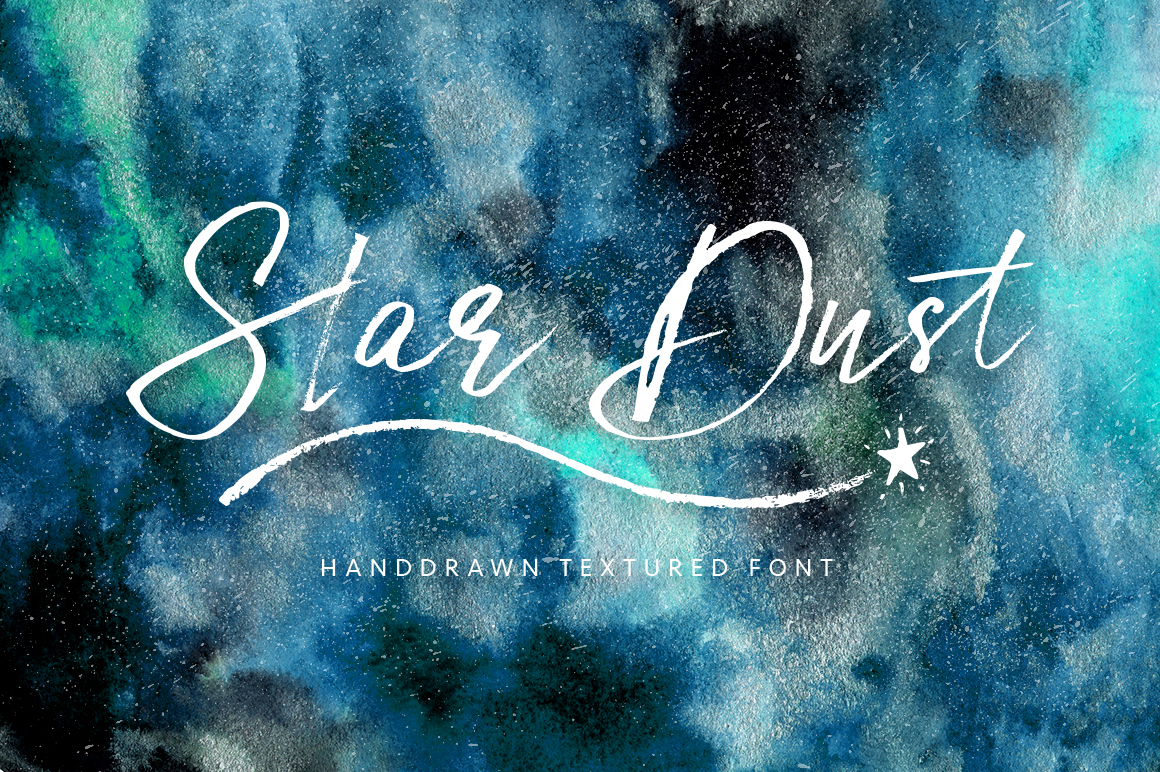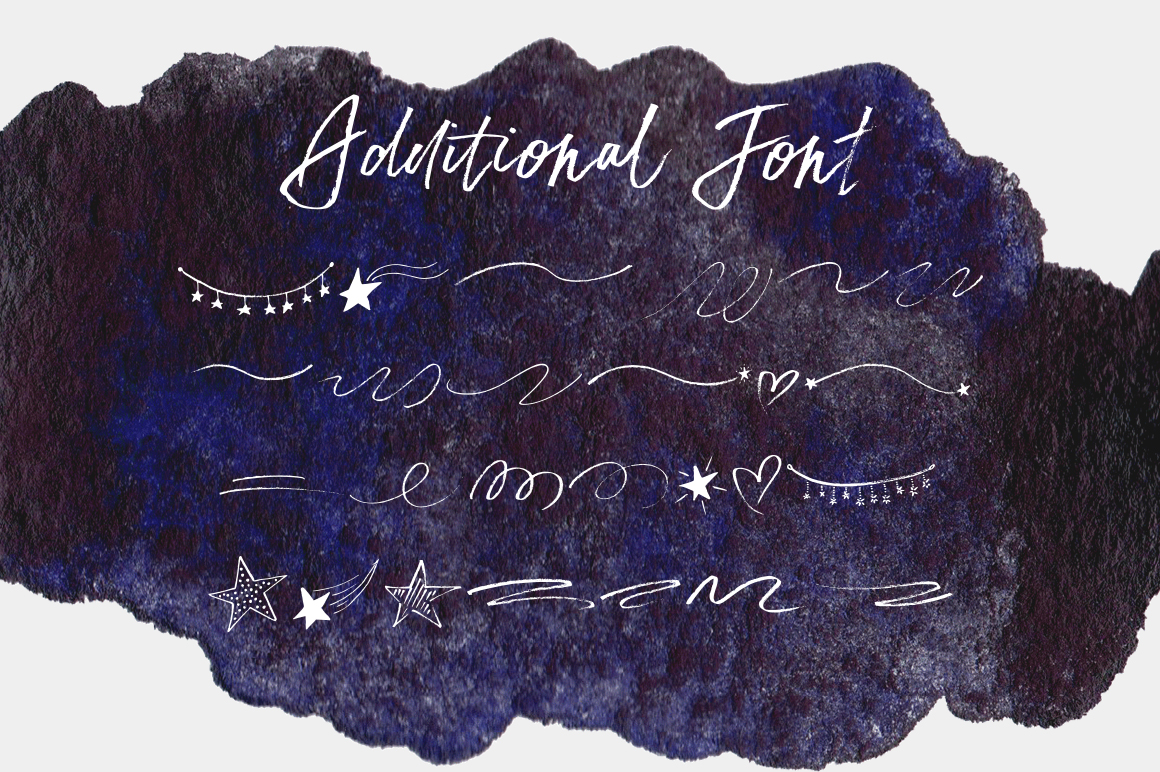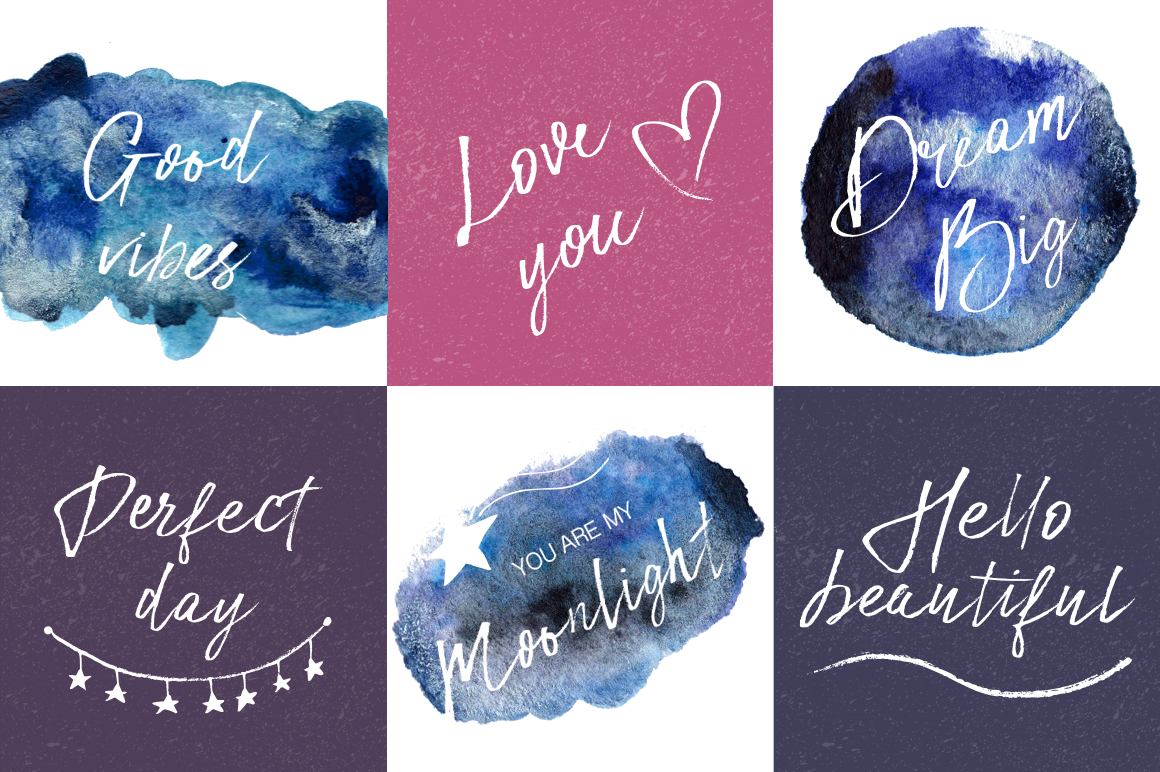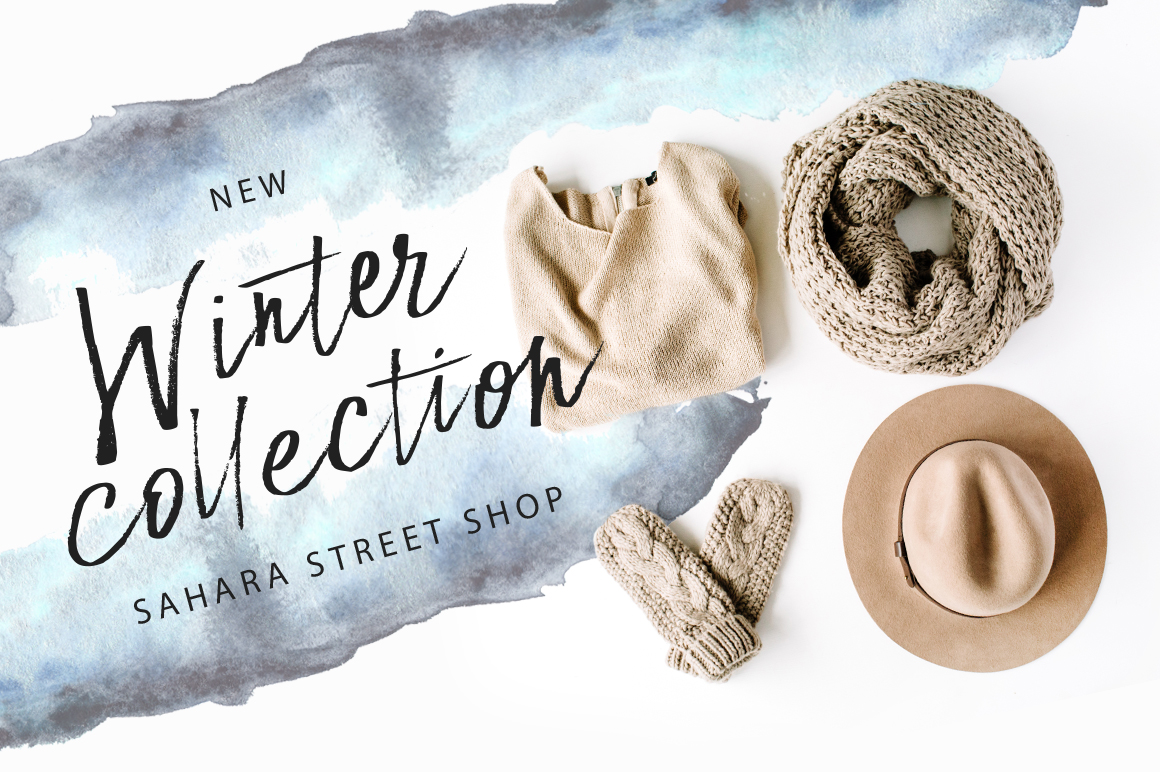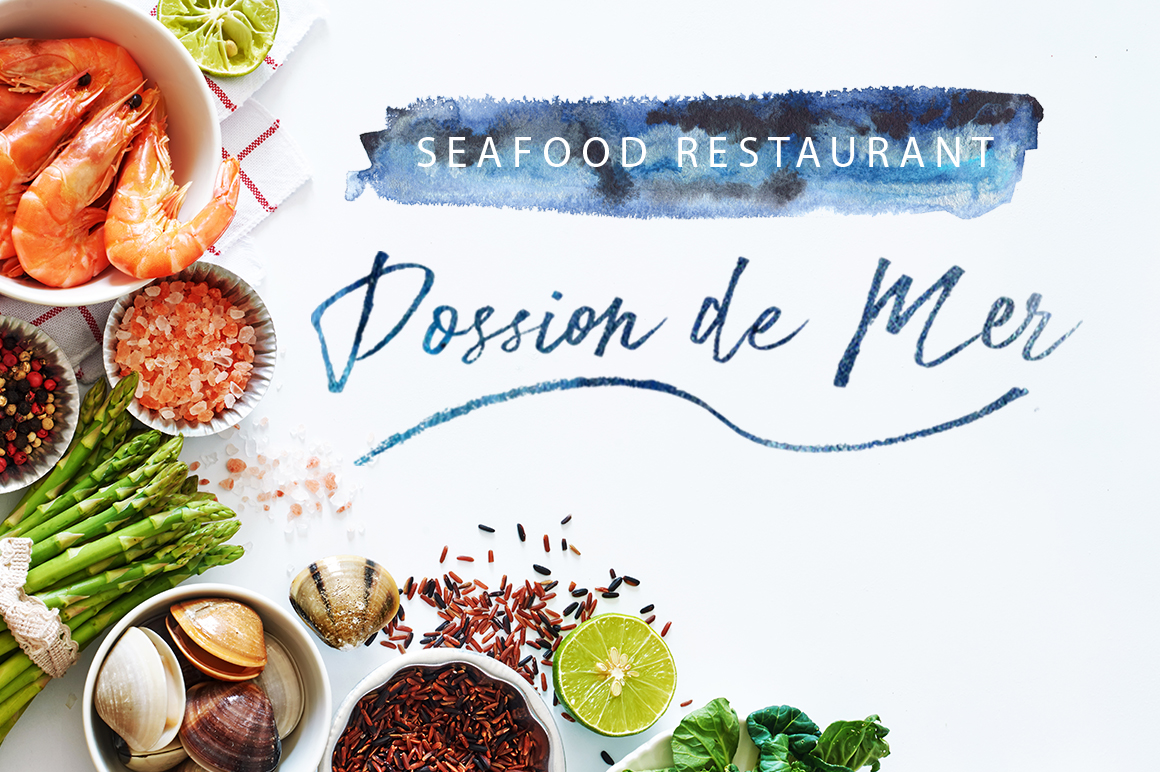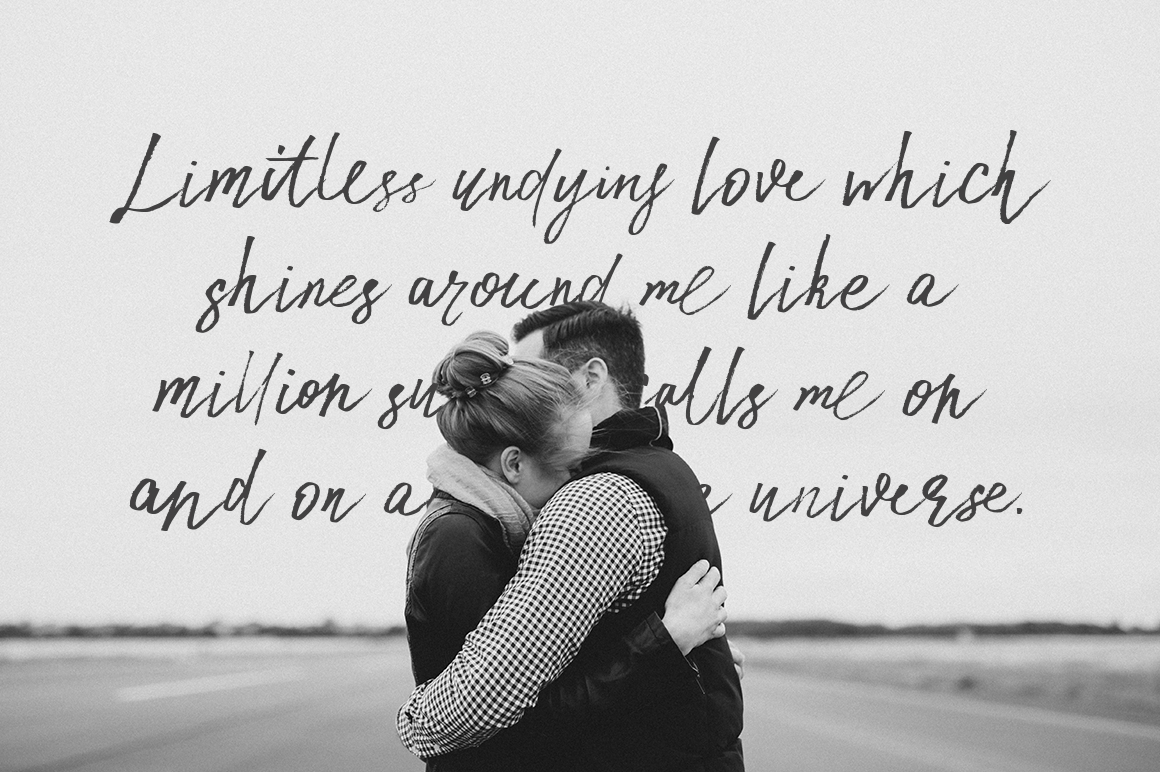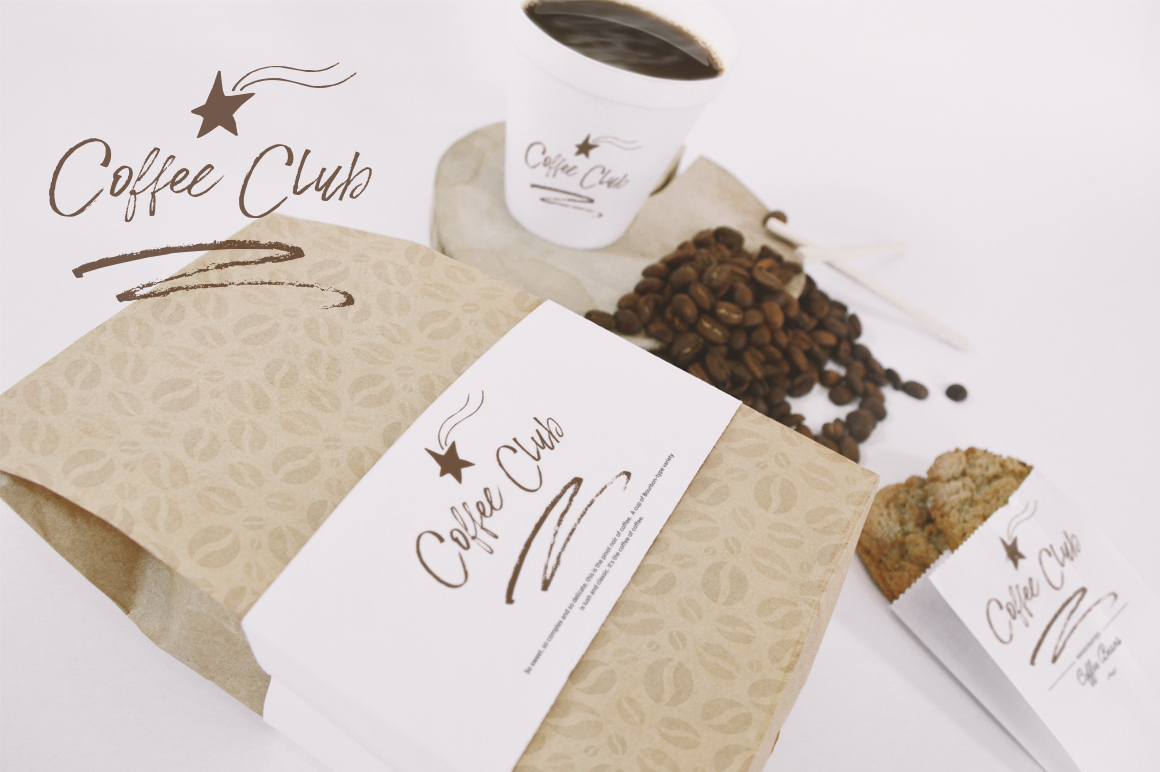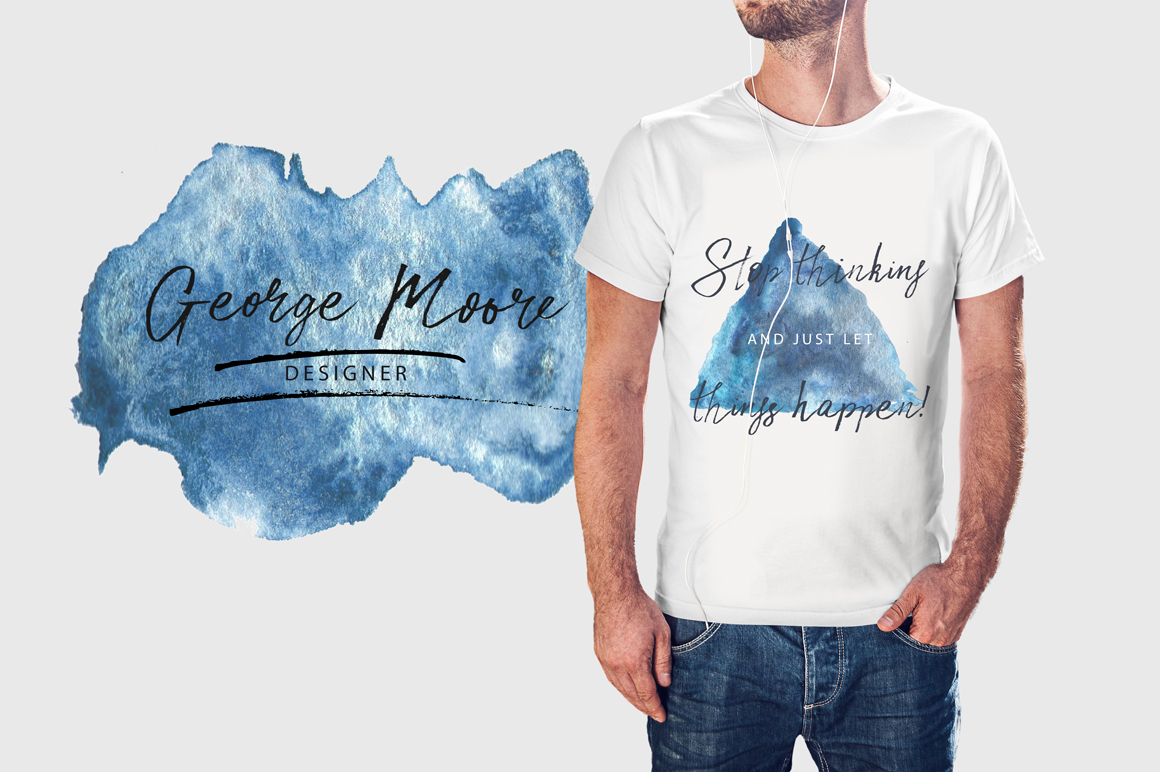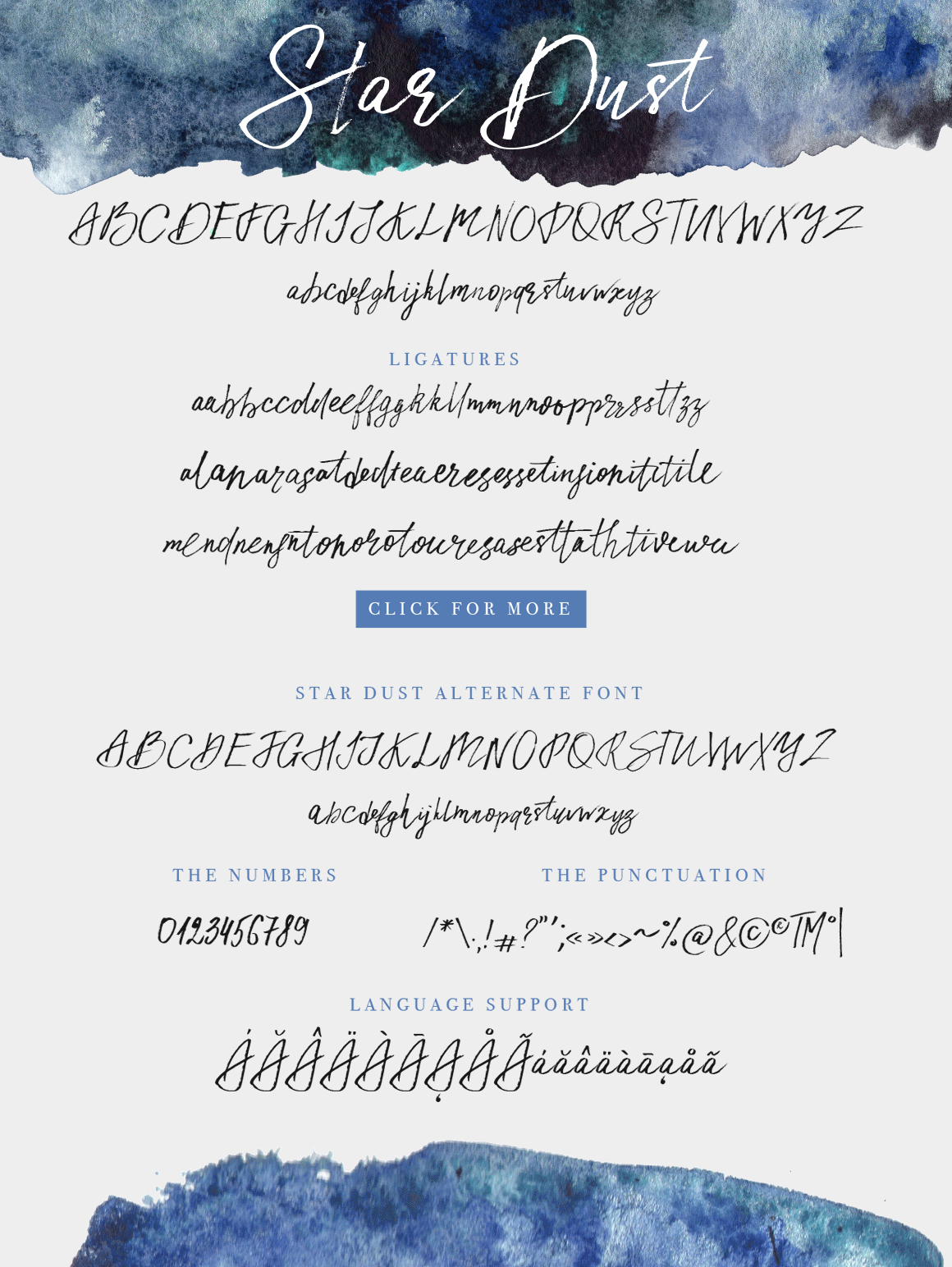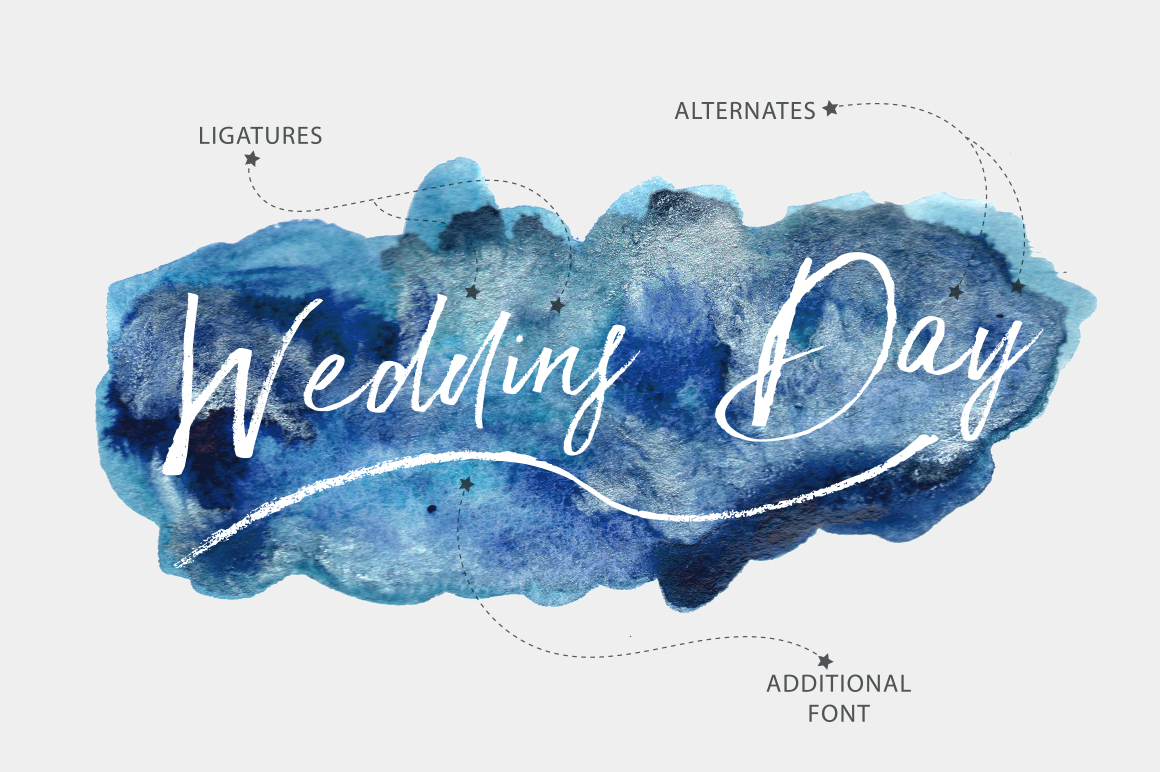
Star Dust Font
About Star Dust Font
Star Dust is a beautiful script font with hand drawn texture and rapid strokes giving it a wonderfully dynamic feel. You will also receive an additional font – Stardust Doodle. It comes with 26 swashes and ornaments for letters from A to Z.